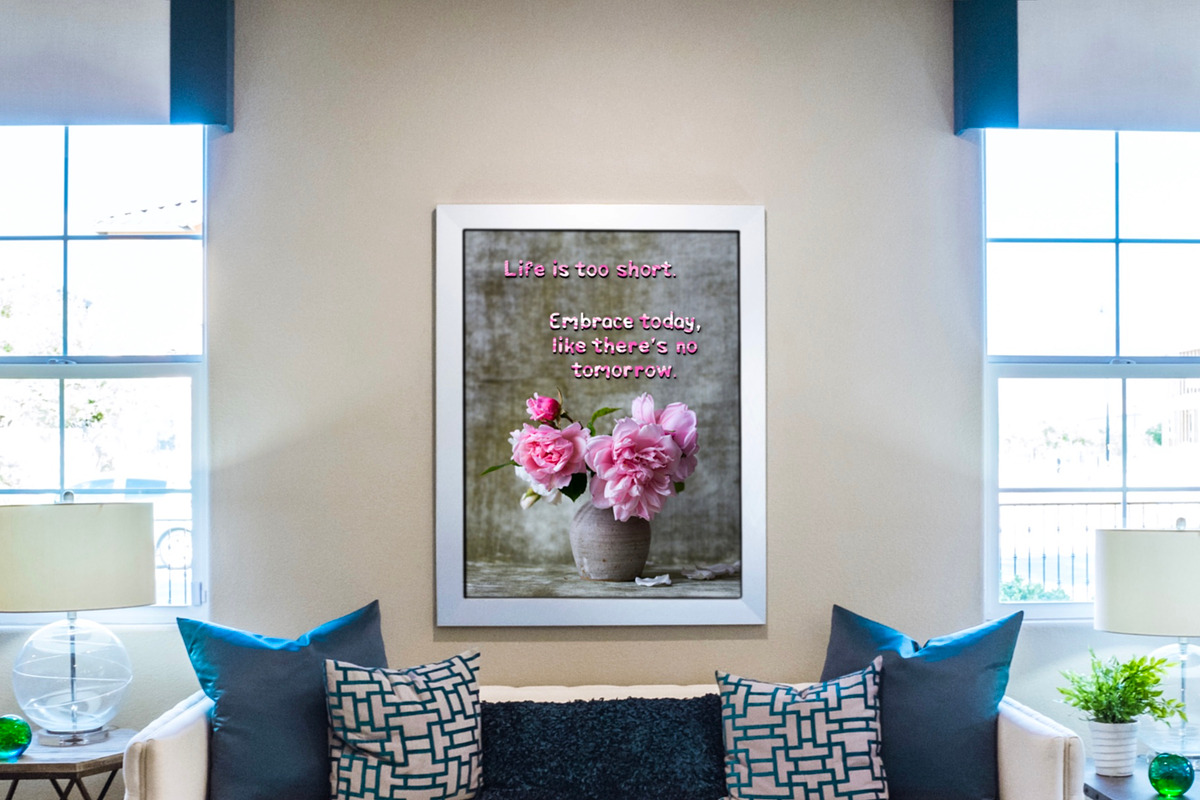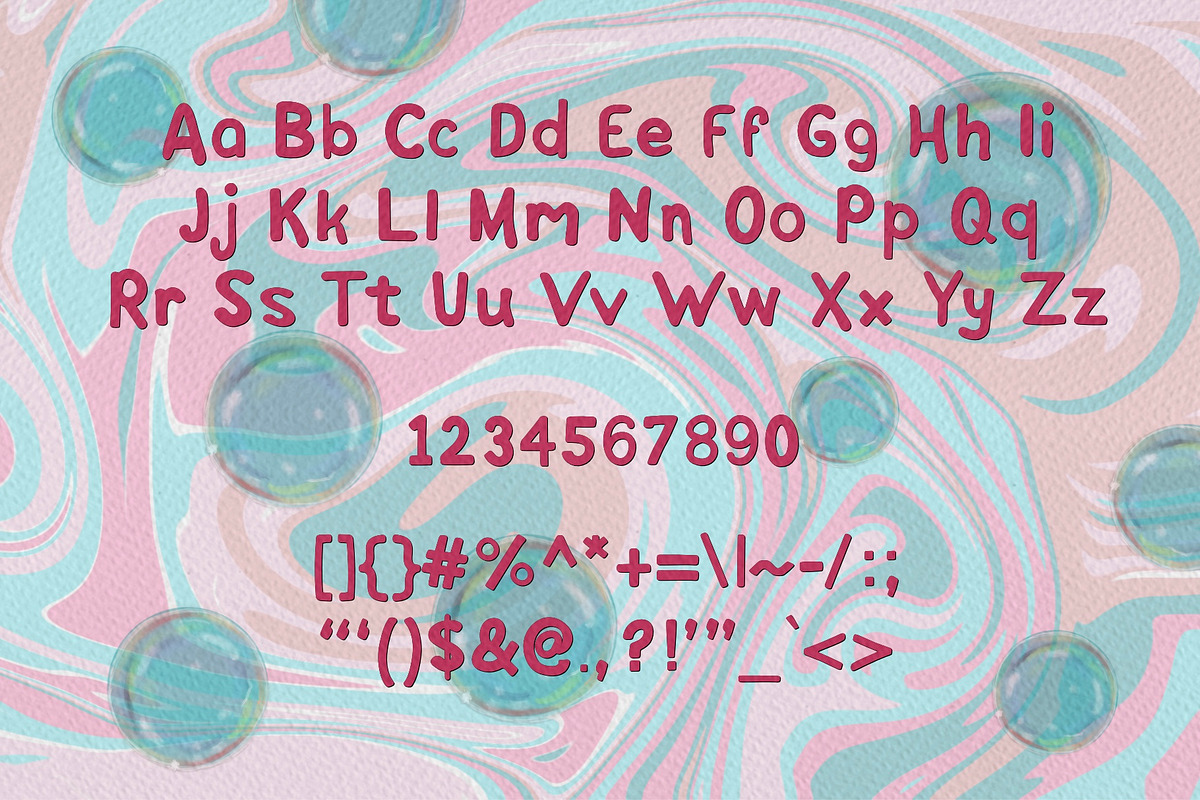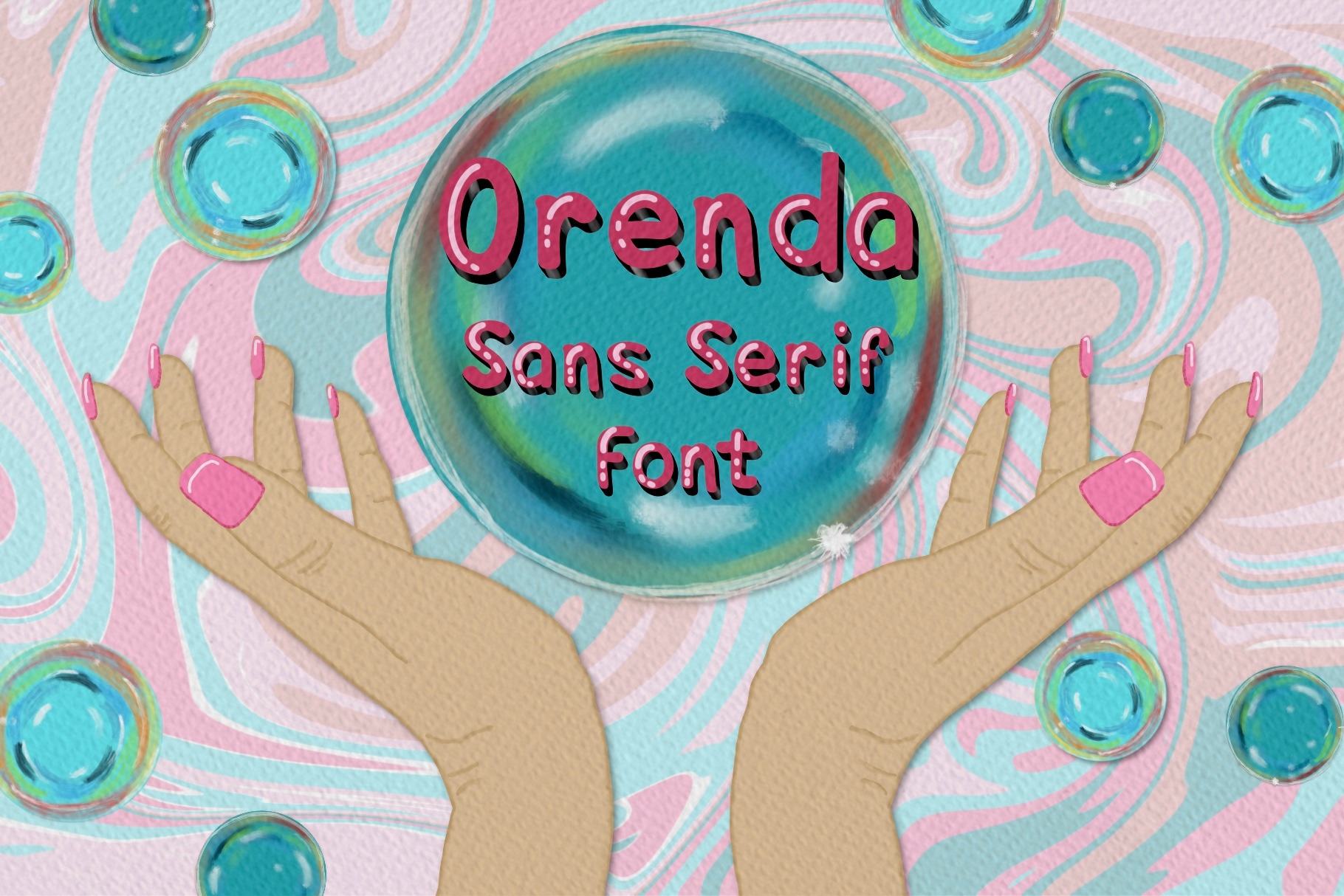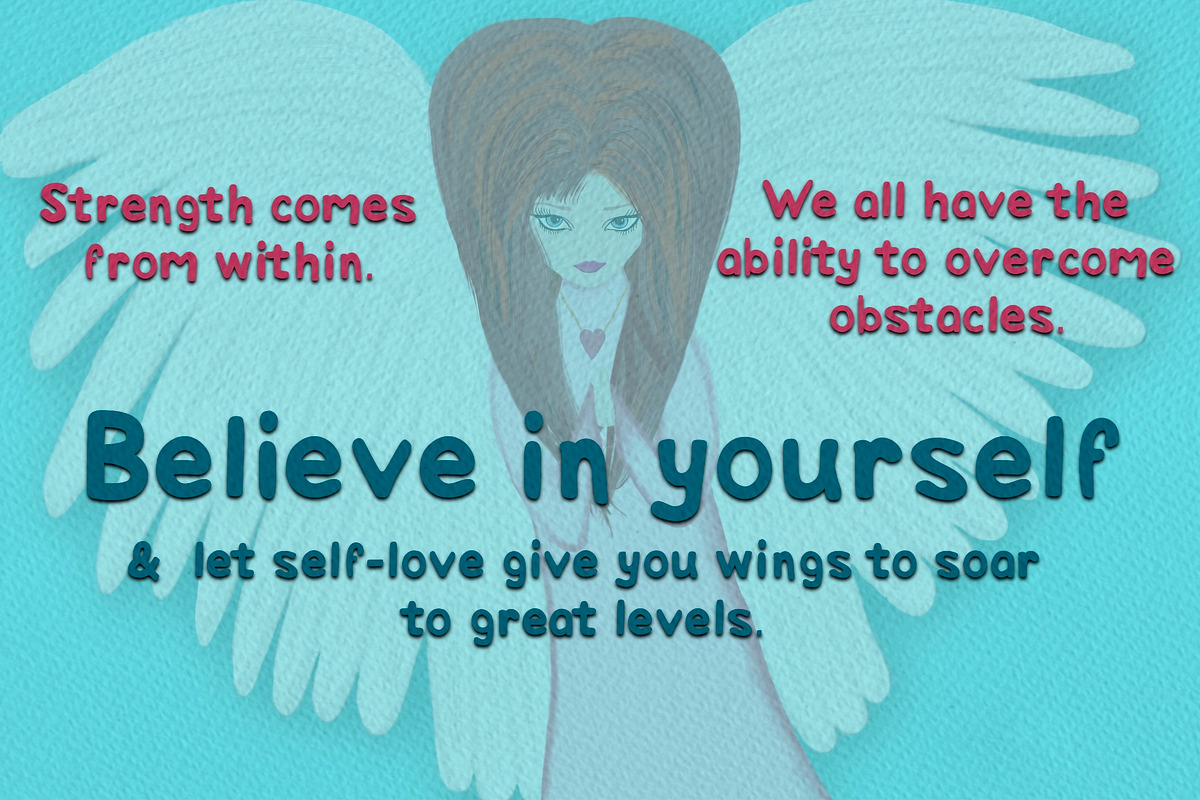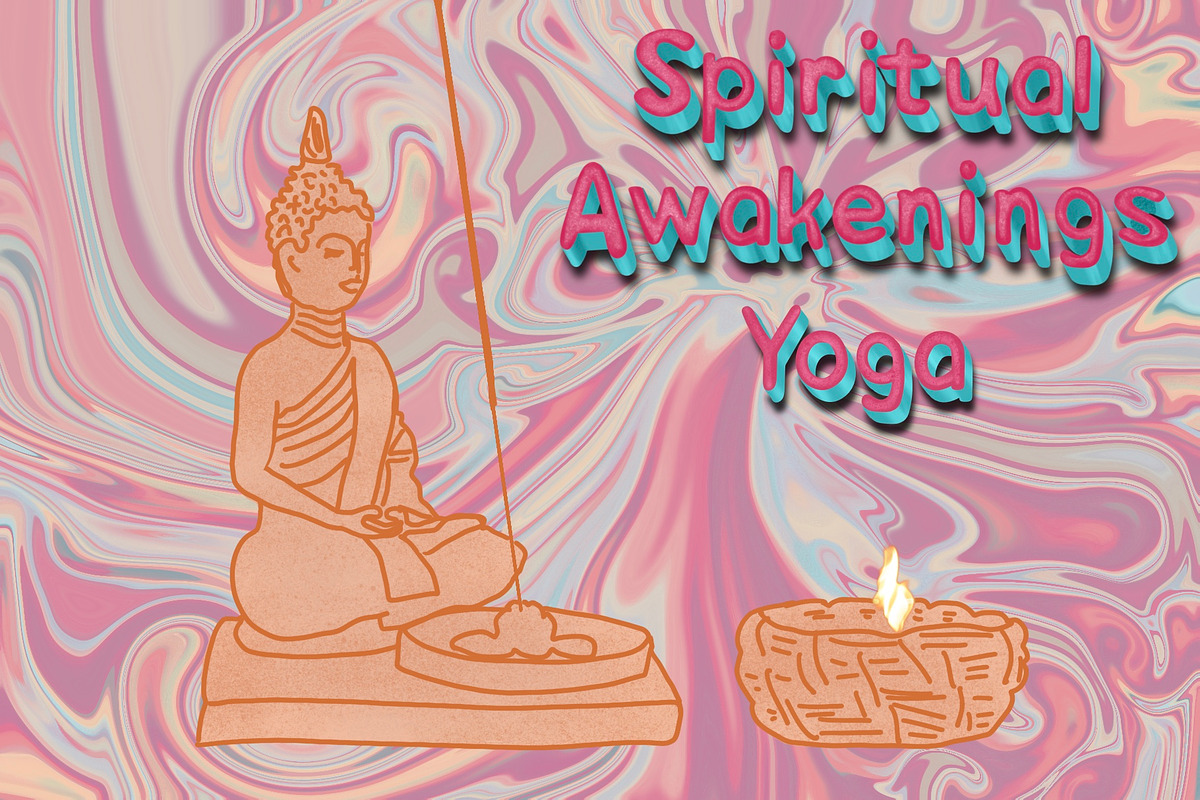
Orenda Sans Serif Font
Orenda is a sans serif font that’s versatile. I was inspired by the name, which is extraordinary, invisible power, when I created this hand-drawn font.
Use it in your printables, social media posts, wall decor, inspirational designs, logos, etc…